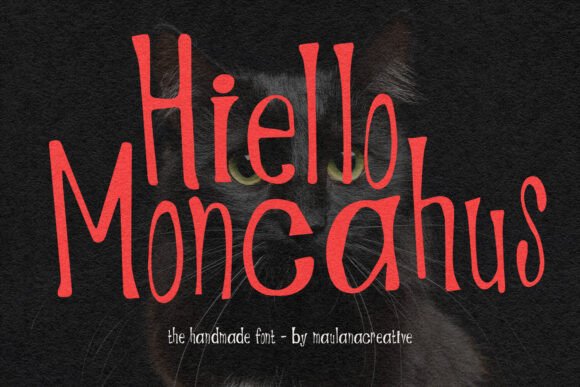
Introducing Hiello Moncahus Font: The Ultimate Display Font for Creative Projects
Hiello Moncahus is a unique, handmade display font that has a fun and creative style. It features bold, playful letters with a handcrafted look, perfect for making eye-catching titles, logos, and designs. Its friendly and artistic appearance gives any project a personal touch.
Key Features of Hiello Moncahus Font
- Handmade and Unique: Hiello Moncahus is a one-of-a-kind font, crafted with love and care to give your designs a distinctive look.
- Bold and Playful: The font features bold, playful letters that are sure to grab attention and make your designs stand out.
- Handcrafted Look: The font has a handcrafted look, giving it a personal and artistic touch that’s perfect for creative projects.
- Multipurpose: Hiello Moncahus is perfect for a wide range of design projects, from titles and logos to posters and packaging.
Benefits of Using Hiello Moncahus Font
Using Hiello Moncahus font in your designs can have numerous benefits. Here are a few:
- Adds a Personal Touch: The font’s handmade and artistic look gives your designs a personal touch that’s sure to resonate with your audience.
- Grabs Attention: The bold and playful letters are sure to grab attention and make your designs stand out in a crowded market.
- Versatile: Hiello Moncahus is a versatile font that can be used in a wide range of design projects, from digital to print.
- Easy to Read: Despite its bold and playful look, Hiello Moncahus is easy to read, making it perfect for titles, headings, and other display text.
How to Use Hiello Moncahus Font
Using Hiello Moncahus font is easy. Here are a few tips to get you started:
- Pair it with Other Fonts: Pair Hiello Moncahus with other fonts to create a unique and visually appealing design.
- Use it for Titles and Headings: Use Hiello Moncahus for titles, headings, and other display text to add a personal touch to your designs.
- Experiment with Colors: Experiment with different colors to find the perfect combination that works with your design.
- Use it for Branding: Use Hiello Moncahus as a branding font to create a consistent and recognizable visual identity.
Inspiration for Your Designs
Hiello Moncahus font is perfect for designers who want to add a personal touch to their designs. Here are a few inspiration ideas to get you started:
- Create a Unique Logo: Use Hiello Moncahus to create a unique and memorable logo that stands out from the crowd.
- Design a Playful Poster: Use Hiello Moncahus to design a playful and eye-catching poster that grabs attention.
- Develop a Brand Identity: Use Hiello Moncahus as a branding font to create a consistent and recognizable visual identity.
- Create a Handmade Look: Use Hiello Moncahus to create a handmade look that’s perfect for crafty and DIY designs.
In conclusion, Hiello Moncahus font is a unique and versatile display font that’s perfect for creative projects. Its handmade and artistic look gives any design a personal touch that’s sure to resonate with your audience. With its bold and playful letters, Hiello Moncahus is sure to grab attention and make your designs stand out.